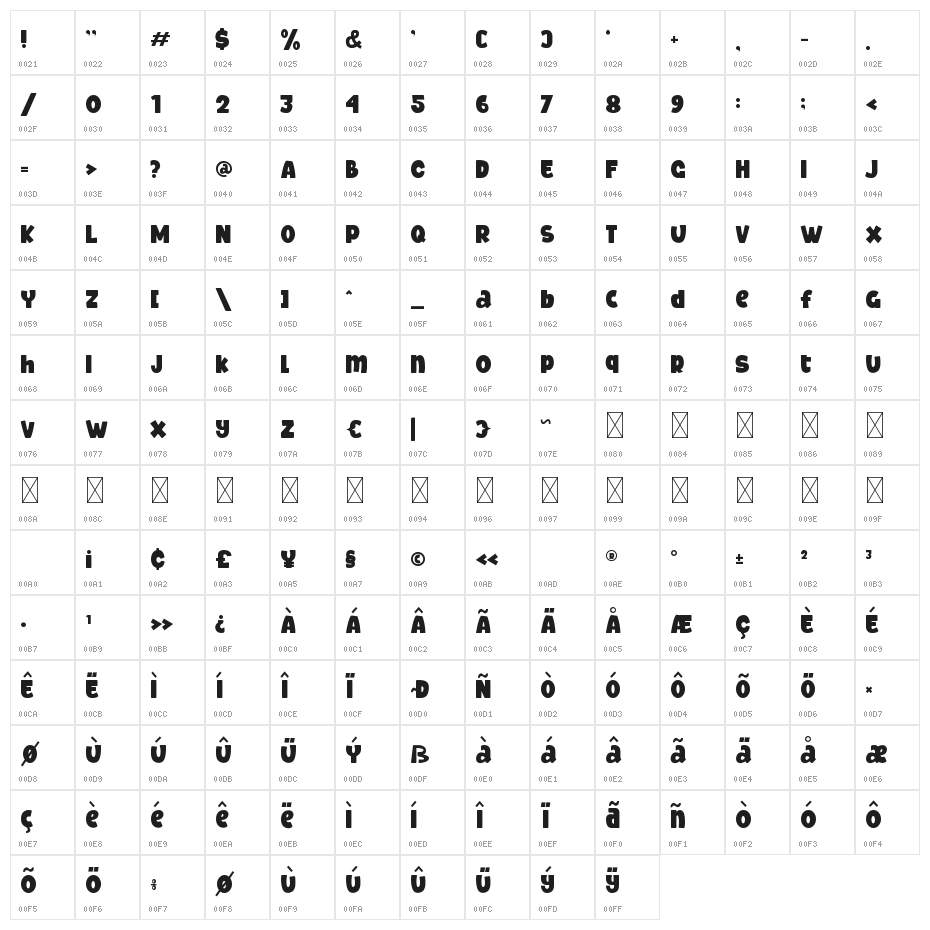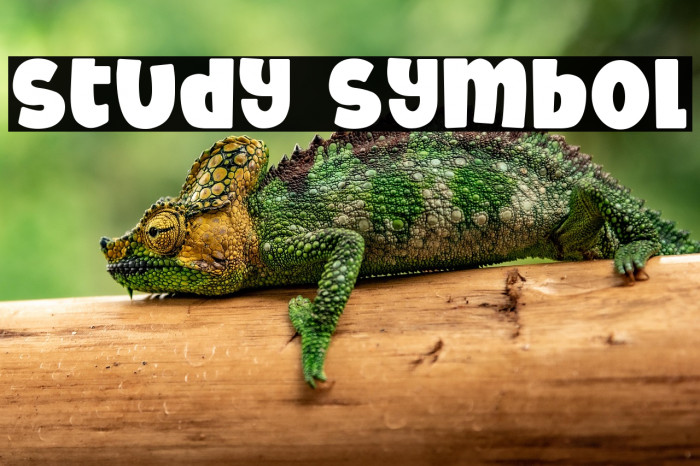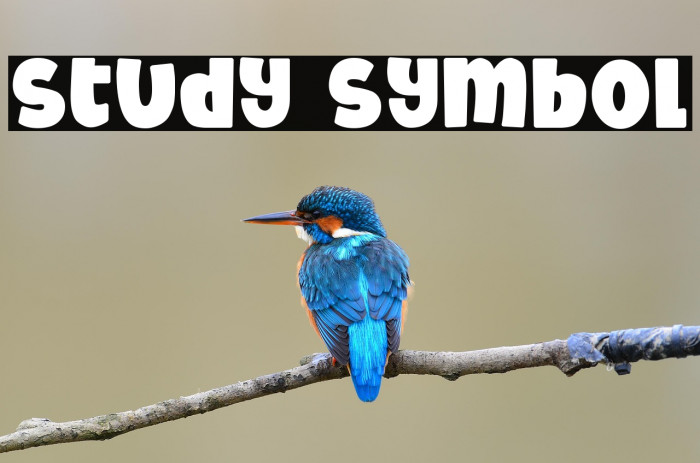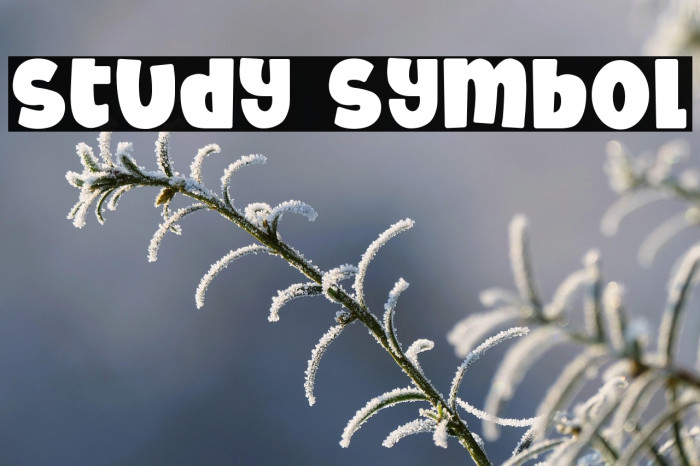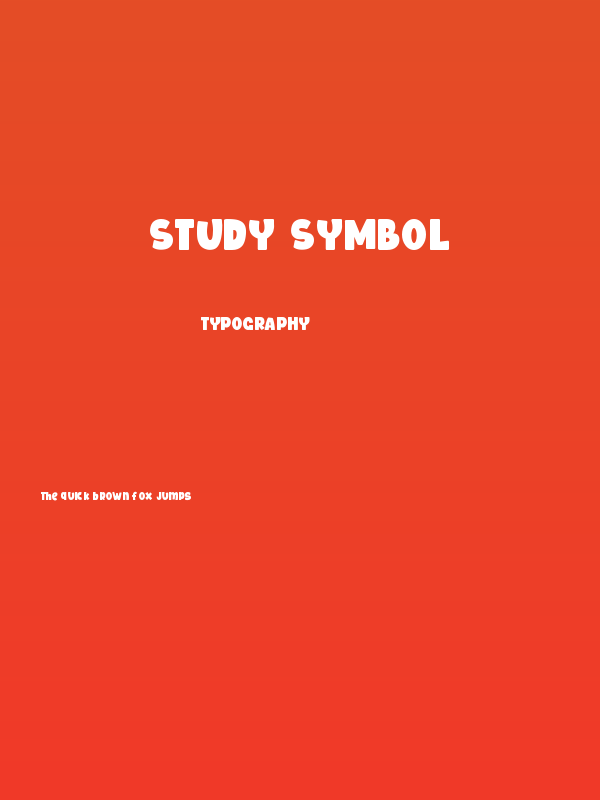
Study Symbol Font
Study Symbol Description
This font features bold, rounded characters with a playful and chunky appearance. The letters are uniformly thick, giving them a strong presence on the page. The rounded edges and slightly irregular shapes lend a friendly and approachable feel, making it suitable for informal and creative projects. The numbers and special characters maintain the same bold and rounded style, ensuring consistency across all text elements. This font's design is eye-catching and ideal for drawing attention, while its simplicity ensures readability.
| Proposed Projects | Ideal for children's books, playful branding, posters, and social media graphics. |